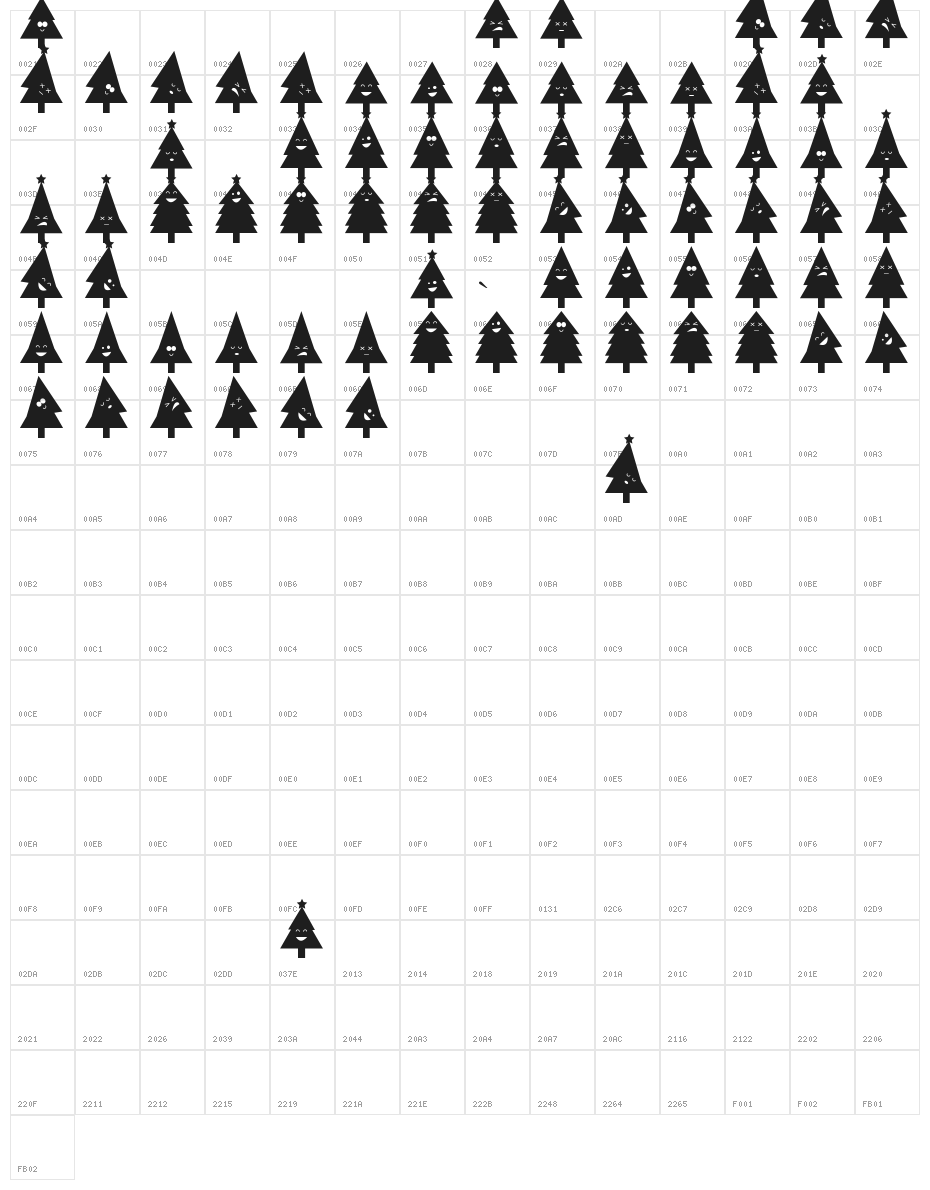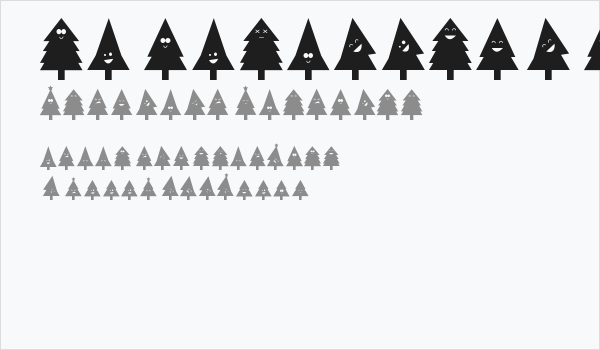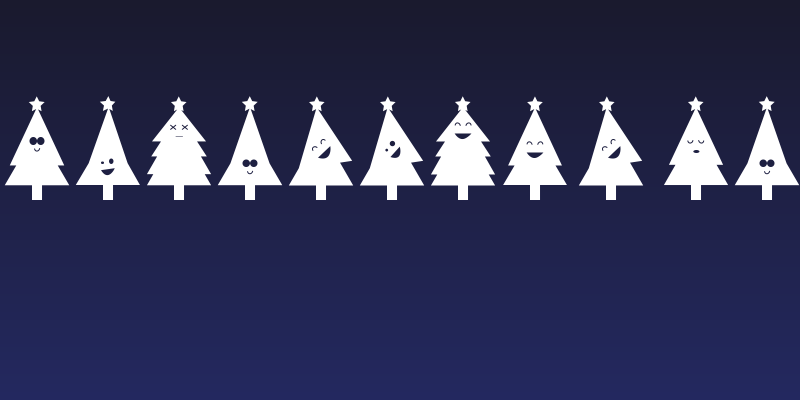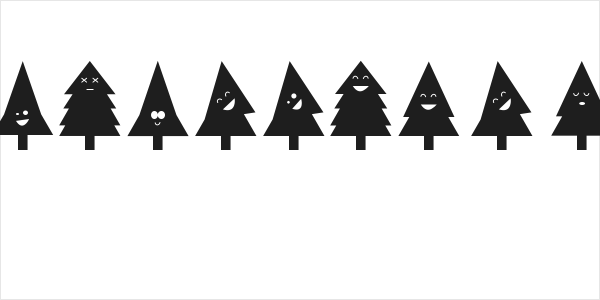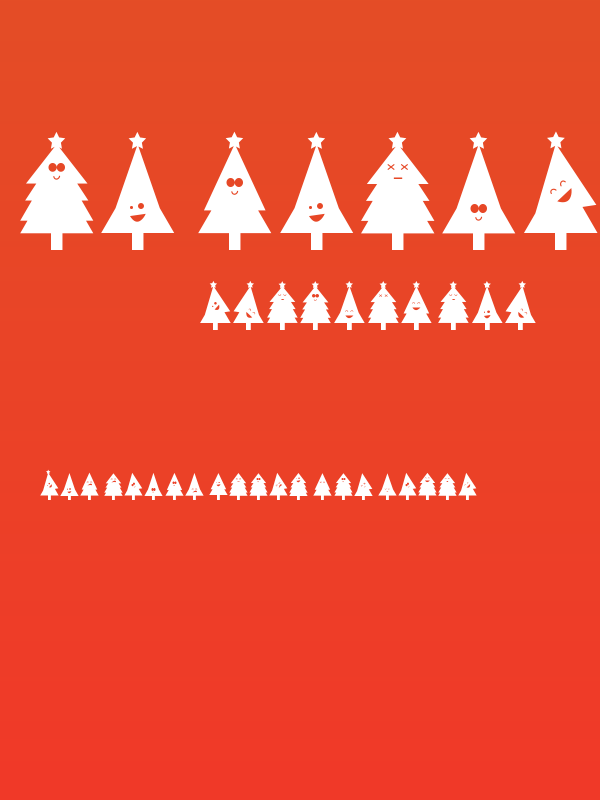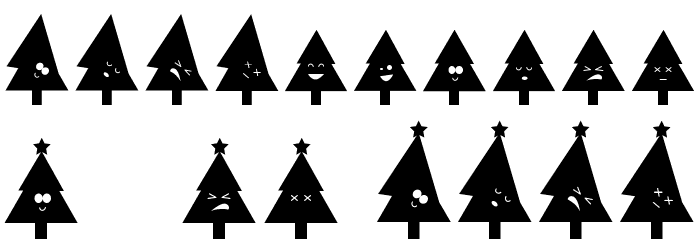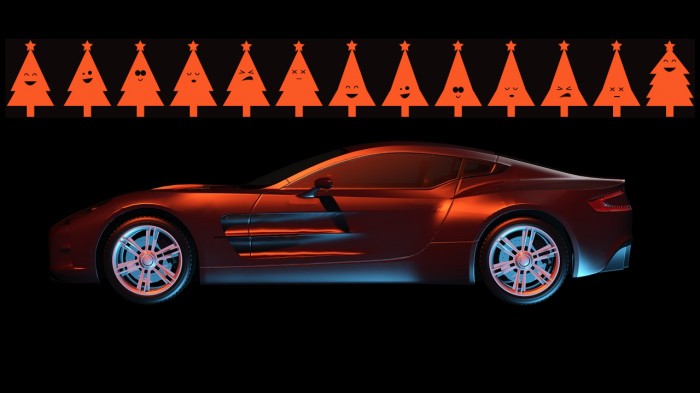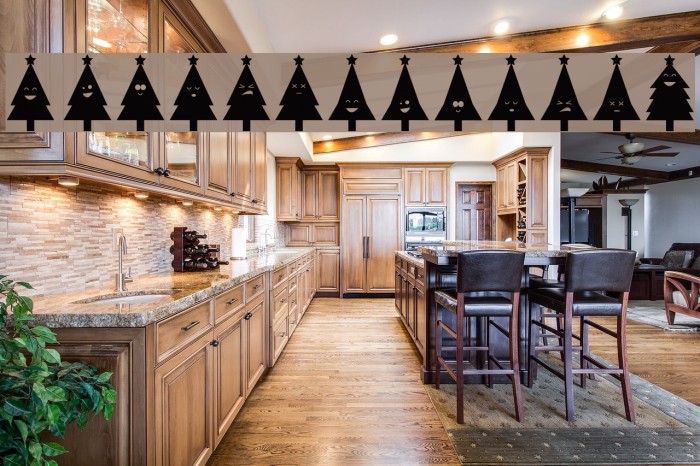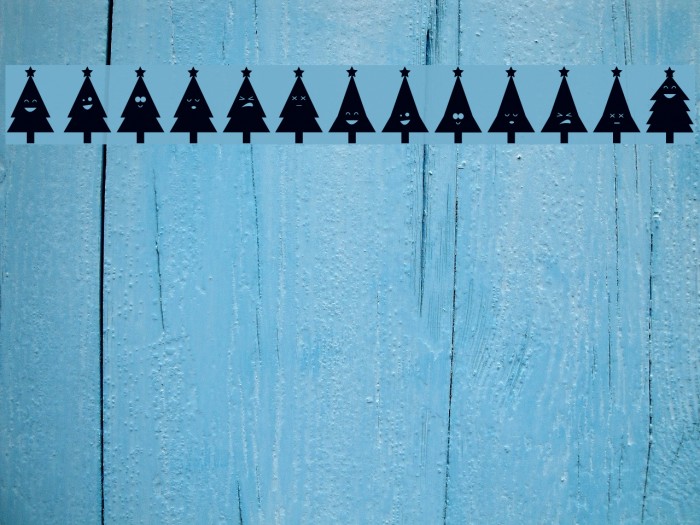
oh christmas ding Font
oh christmas ding Description
A playful decorative font featuring stylized Christmas tree silhouettes as characters, each with unique facial expressions or details, maintaining a consistent tree shape for all glyphs.
| Overall Style | Decorative, Playful, Festive |
| Use Case | Logos, Headlines, Decorative elements |
| Proposed Projects | Holiday cards, festive invitations, seasonal posters, children's crafts, decorative headings. |